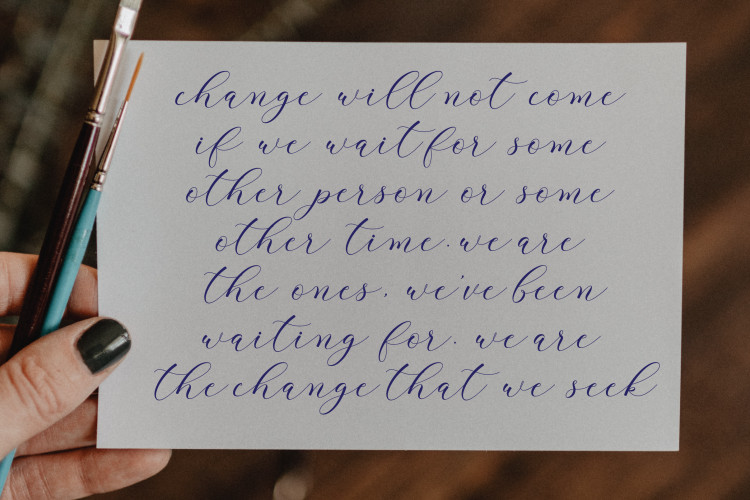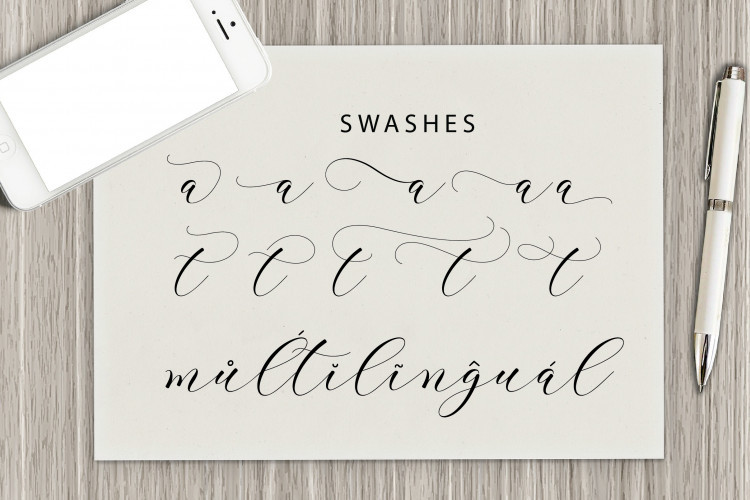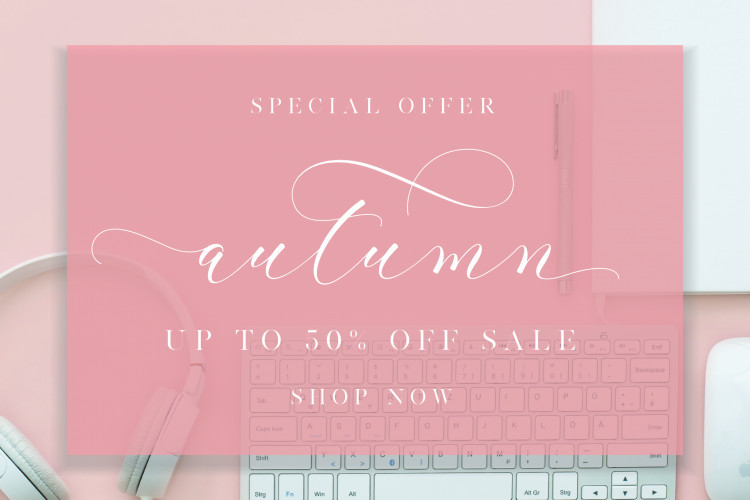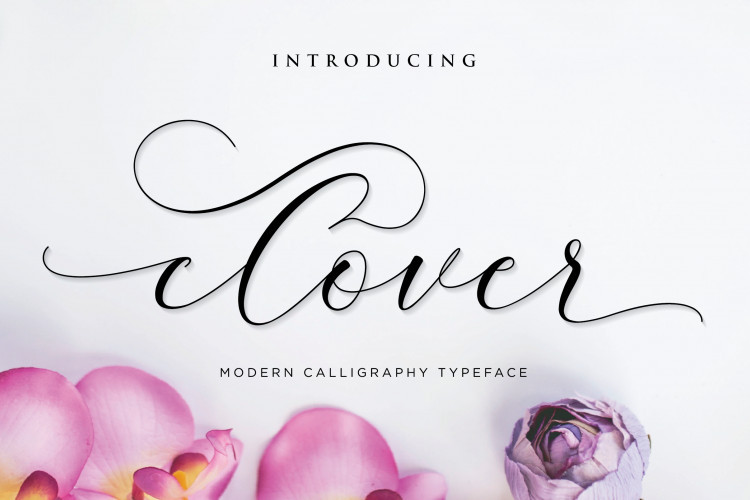
Clover Calligraphy Font
Clover Calligraphy Demo Font
Clover Font – This is a calligraphy script font that comes with beautiful alternative characters. a mixture of copper calligraphy with handleting style. Designed to bring style elegance. Clover designed and shared by fanastudio. The “clover” is a stylish feminine font. It includes amazing swashes which will add a feminine touch to your designs. The classic style is perfect to apply in various formal forms such as invitations, labels, menus, Logos, fashion, make up, stationery, letterpress, romantic novels, magazines, books, greeting / wedding cards, packaging, labels.